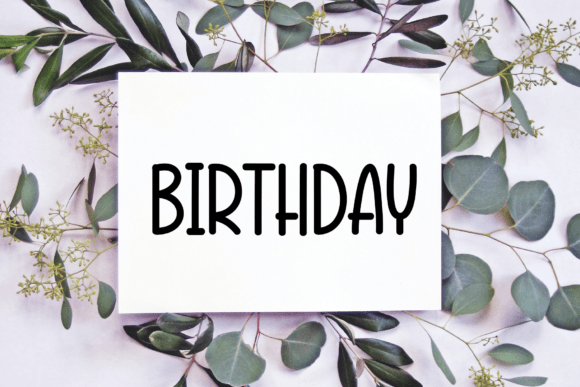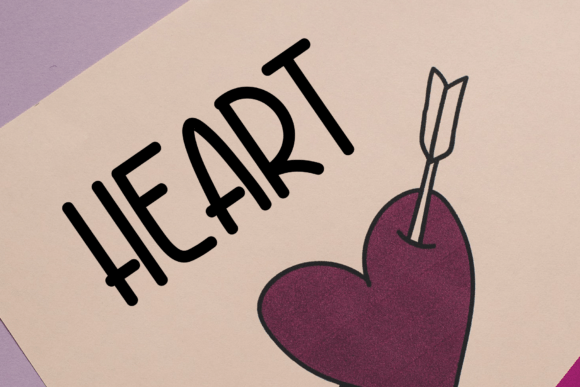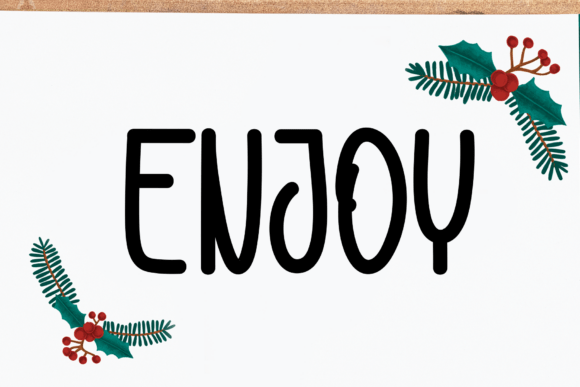
Introduction to Freshjuice Font
Freshjuice is a sweet and beautiful handwritten font.
Featuring characters that dance along the baseline, this font will add a cozy accent to any design project you wish to create .